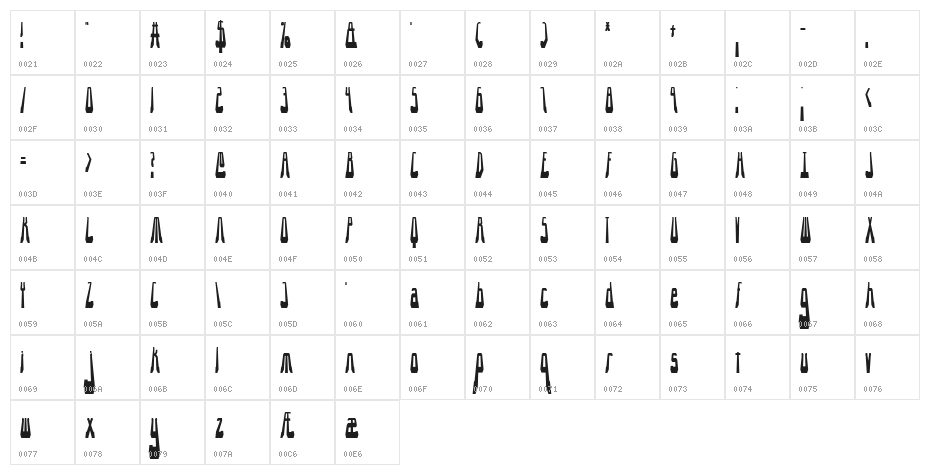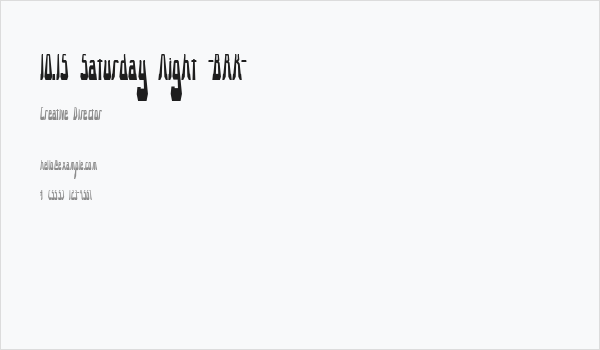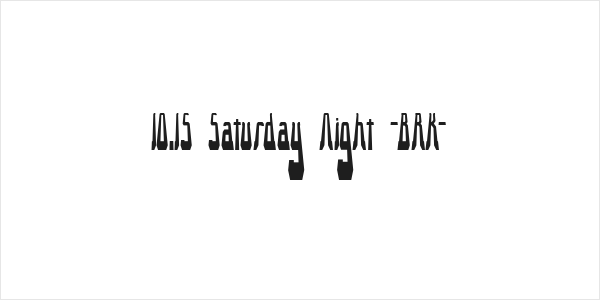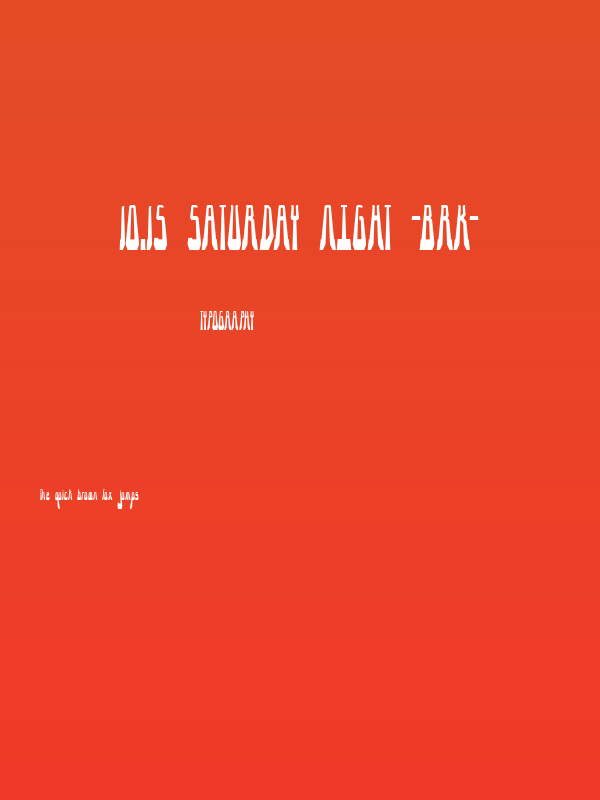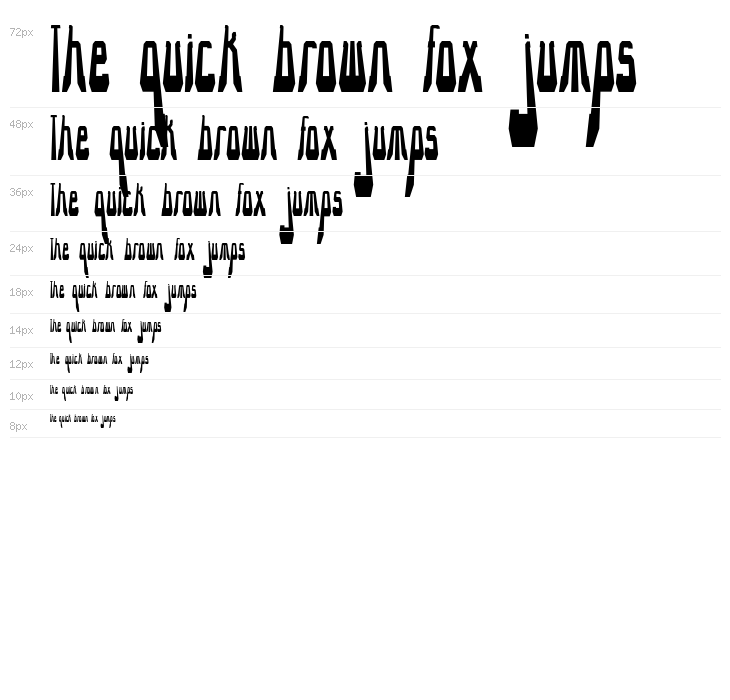
10.15 Saturday Night -BRK- Font
10.15 Saturday Night -BRK- Description
This font features a bold and angular style, characterized by its sharp edges and geometric forms. The uppercase letters are tall and narrow, with a distinct futuristic appearance. The lowercase letters maintain the angular theme, providing a cohesive look across the typeface. Numbers and special characters are designed with the same boldness and angularity, ensuring consistency throughout. The font's unique style makes it stand out, suitable for projects that require a modern and edgy aesthetic.
| Proposed Projects | Ideal for sci-fi themed designs, modern posters, edgy branding, and digital artwork. |